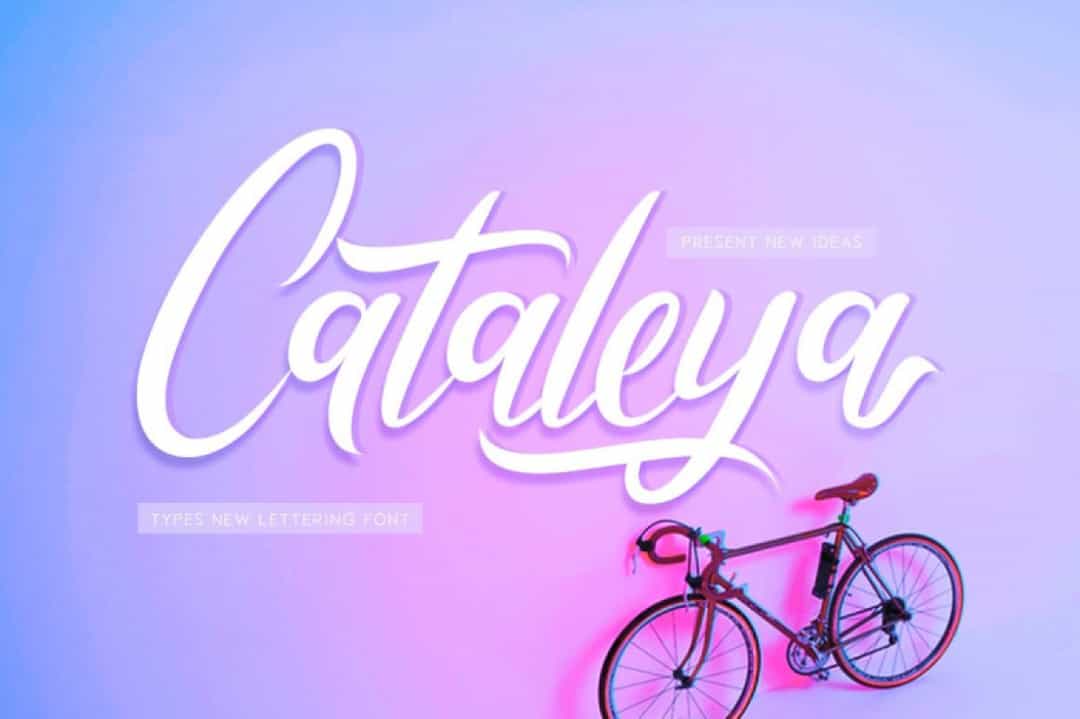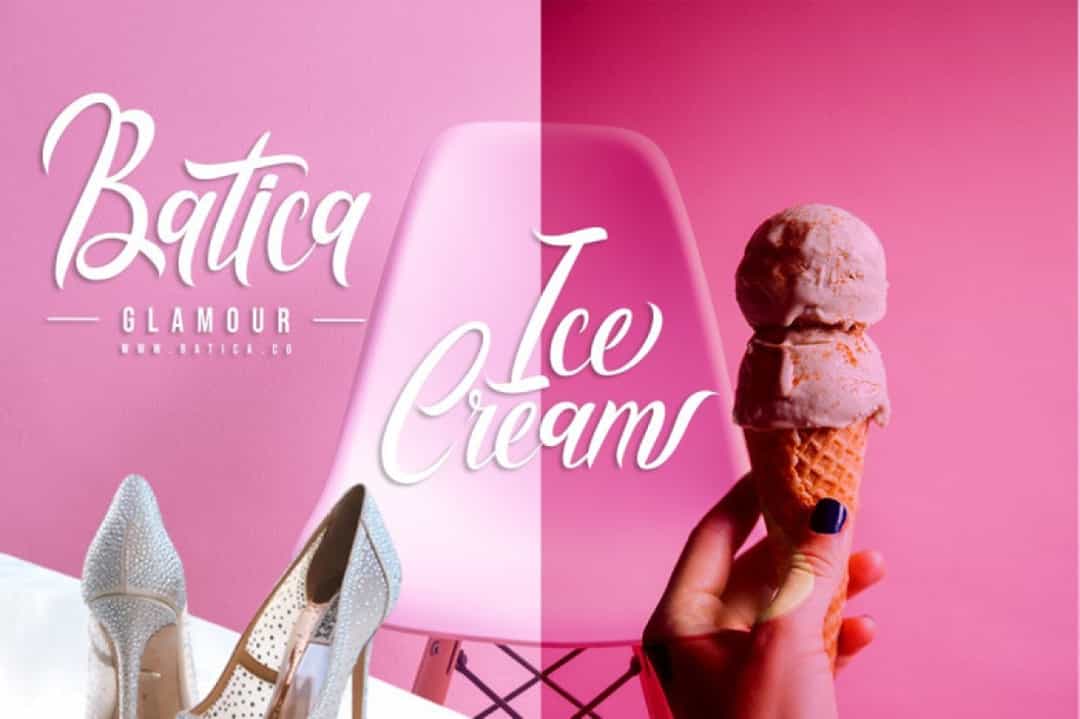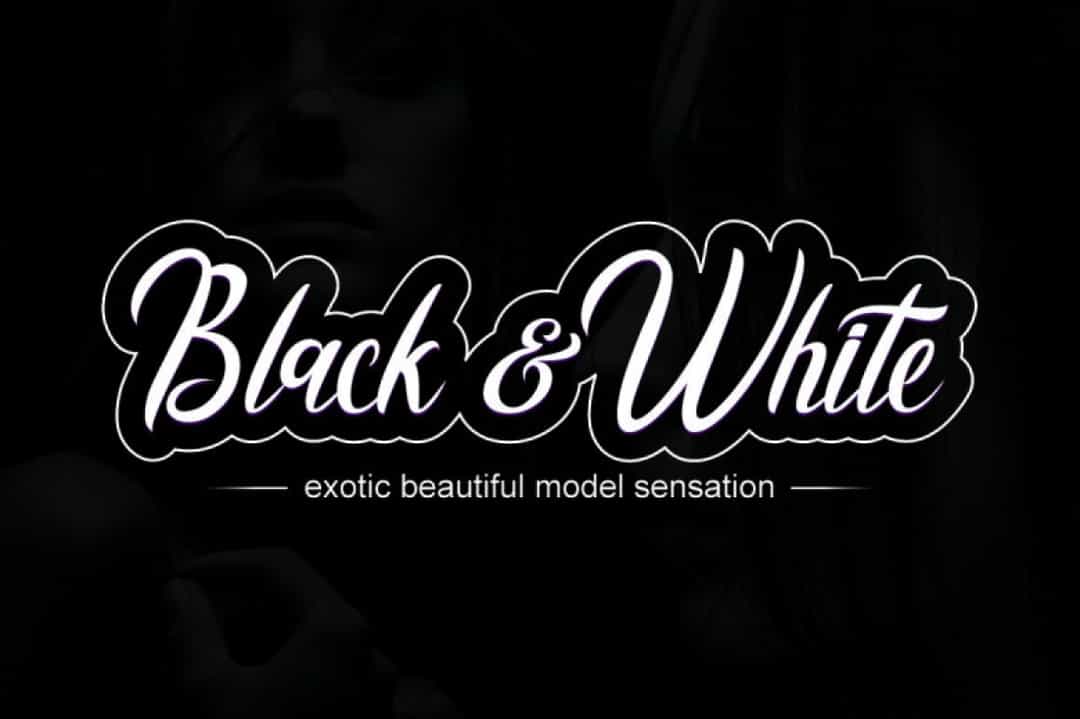
Discover Cataleya Font, part of the Script collection—a versatile and unique font perfect for adding a personal touch to your projects. Download it for free and enjoy crafting designs with style, from invitations to social media posts. This font is available exclusively for personal use, giving you the freedom to create without limits. Unlock your creativity with Cataleya Font today!
Introducing Cataleya Font. Cataleya is a modern font, every letter script has been carefully designed to make your text look elegant with an elongated connection pattern. With a modern script style this font will be perfect for various projects, for example: weddings, invitations, greeting cards, posters, business cards, quotes for a blog header and branding logo. newsletter